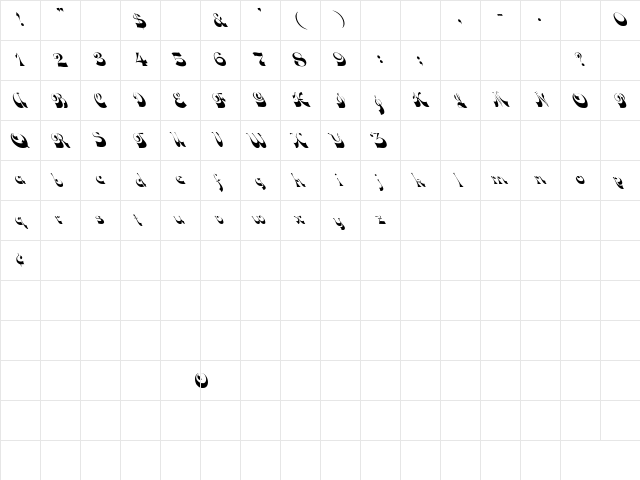
Complete Down Wind Lefty Regular glyph index. Displaying only characters natively supported by Down Wind Lefty Regular font.
Down Wind Lefty is a composed and adaptable typeface that performs quietly and consistently across a wide range of design contexts.